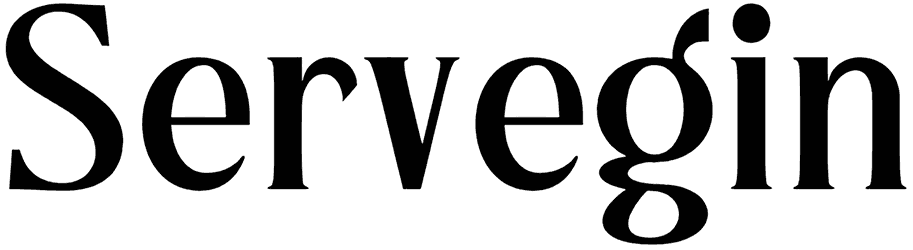
Servegin Font
Would you want to be noted, so no one can take their eye off your outcome? Have a look at Servegin, a serif font with luxury regard. This artwork has a unique antique face that serves as one of your first-class pickups for many assortments.
Magazine covers, postcards, invitations, and a lot more designs with impressive tunes would host this one. A fraction of creativity, and you’re set to one-up each one in ambition with this asset in your hands!